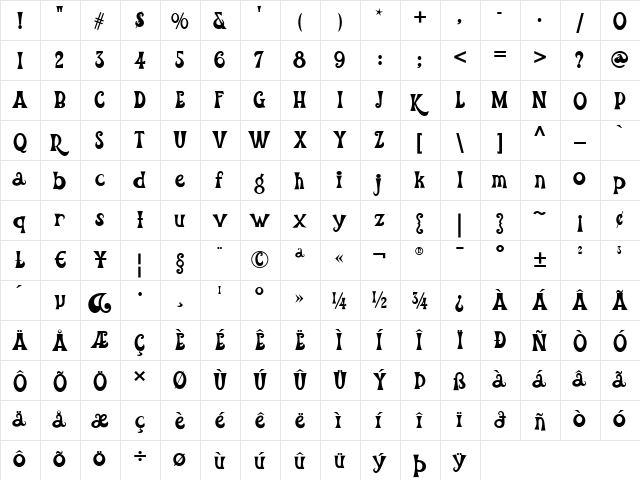
Scary Scrimshaw NF Regular
Design Context for Scary Scrimshaw NF Typeface
Scary Scrimshaw NF leans into the macabre with letterforms designed to disturb and intrigue in equal measure.
Perfect for anything that needs to unsettle — game titles, horror branding, and macabre invitations.
Font Pairing: Pair with a clean neutral sans-serif for body copy to let Scary Scrimshaw NF's character lead without overwhelming the composition.
Pro Tip: Use Scary Scrimshaw NF at larger display sizes for maximum impact. Consider generous tracking to let the disturbing character of each letterform breathe.